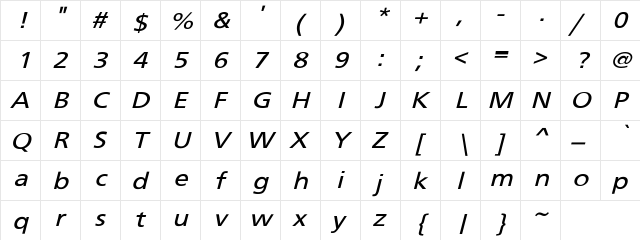
SchranerExtOb 2 Regular
Design Context for SchranerExtOb 2 Typeface
SchranerExtOb 2 is a composed and adaptable typeface that performs quietly and consistently across a wide range of design contexts.
Pro Tip: Use SchranerExtOb 2 in both headline and body roles to test its range before committing to a single application.